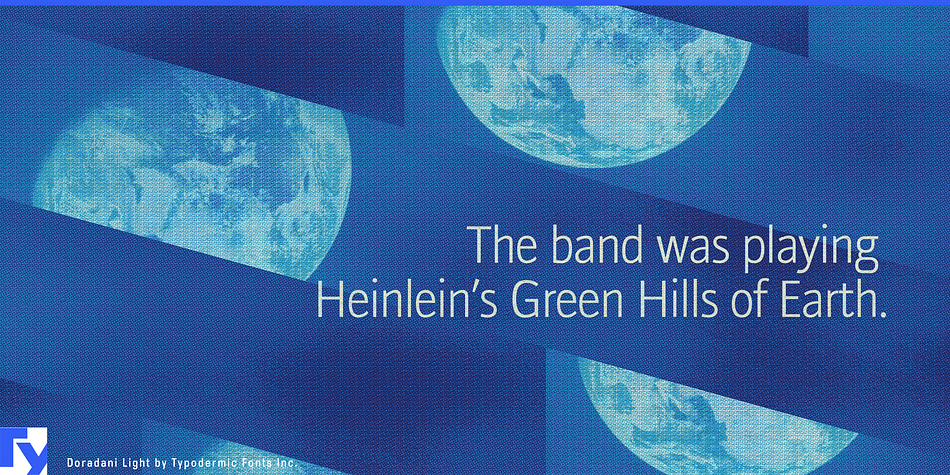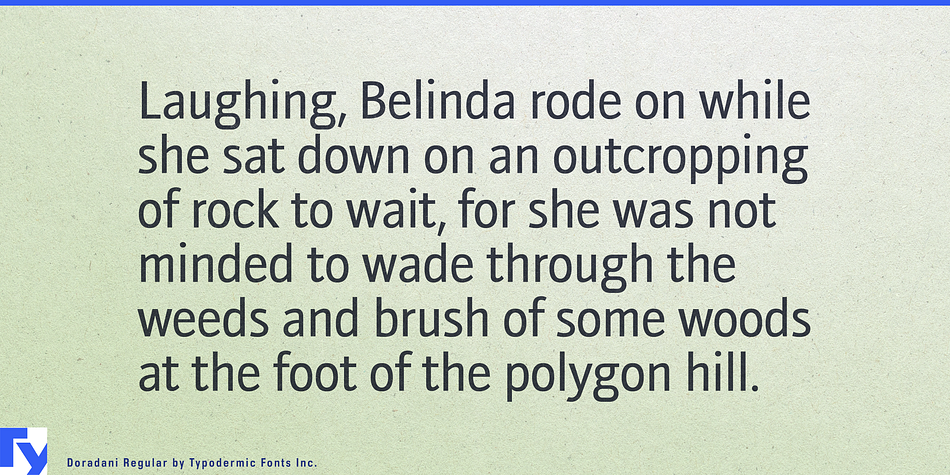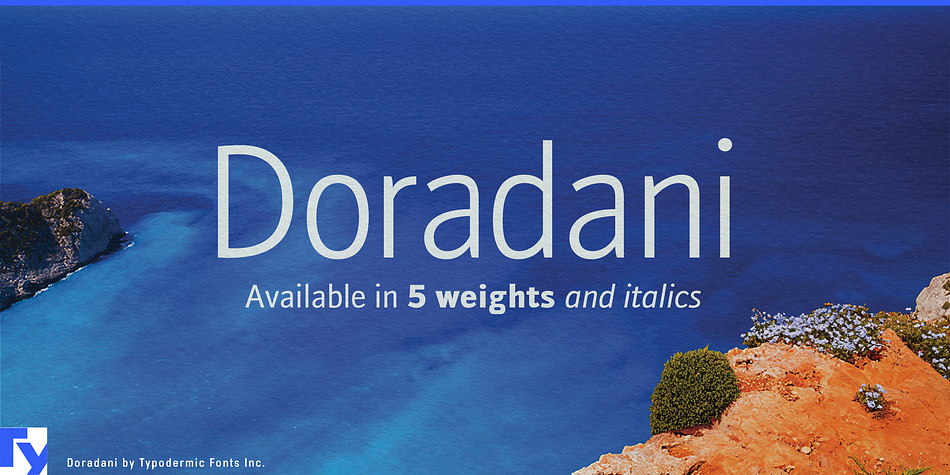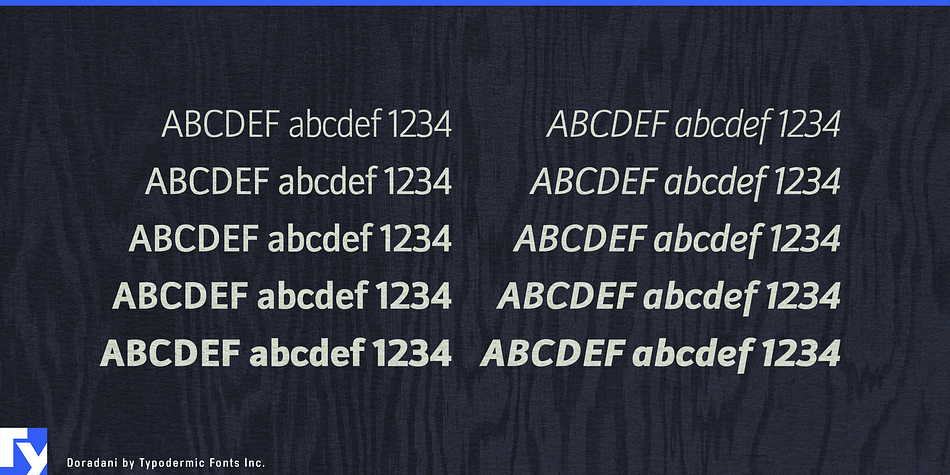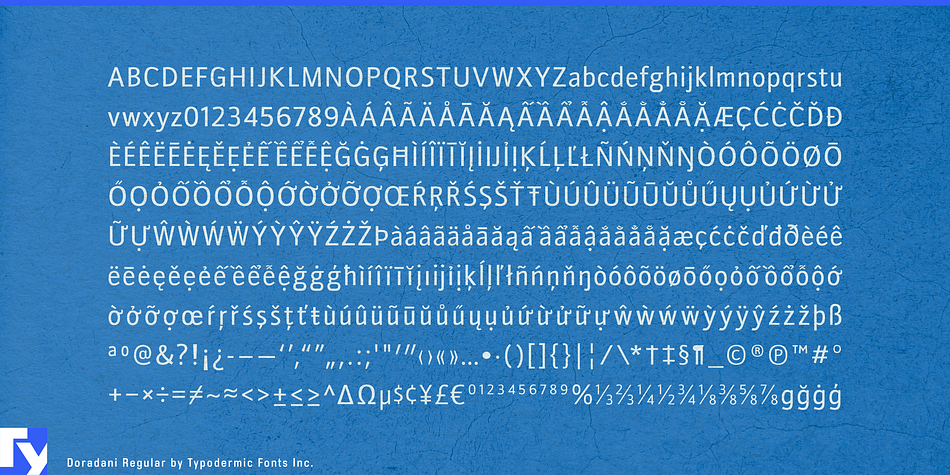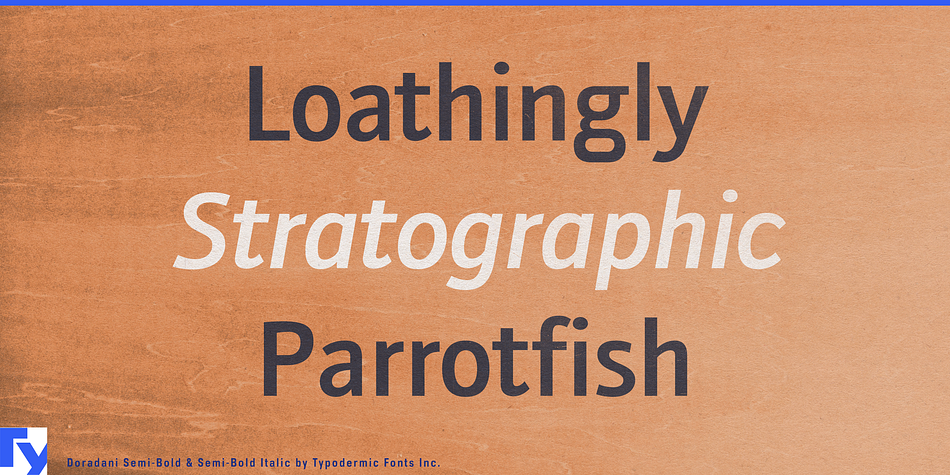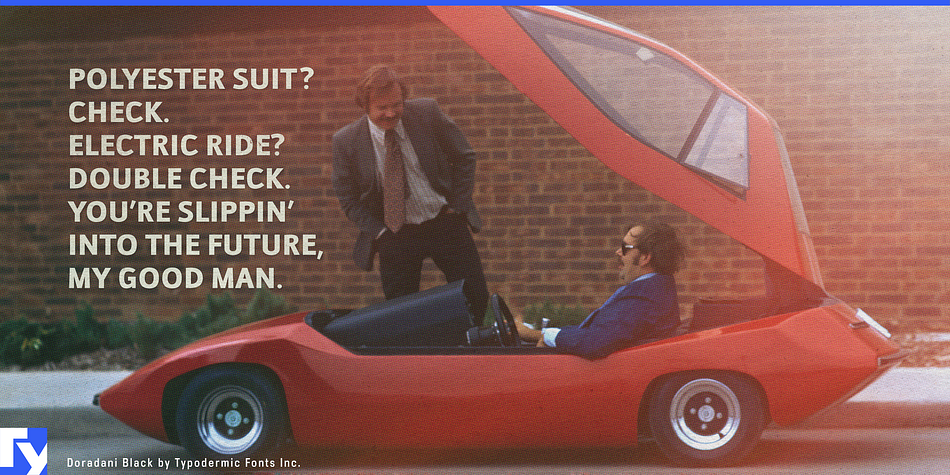
Doradani is a sans serif font family. This typeface has ten styles and was published by Typodermic Fonts Inc.
Doradani is a sans-serif typeface which was spurred by Morris Fuller Benton’s 1903 classic, Franklin Gothic. It’s a hybrid of Franklin’s proportions and late twentieth century open aperture shapes. Doradani is available in 5 weights and italics.